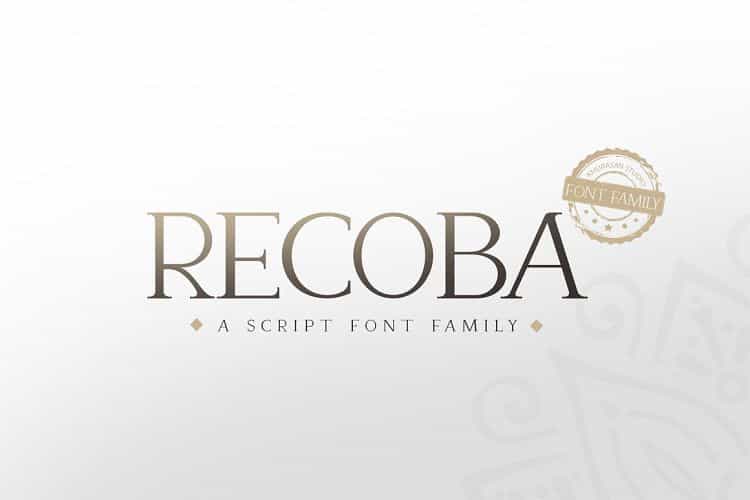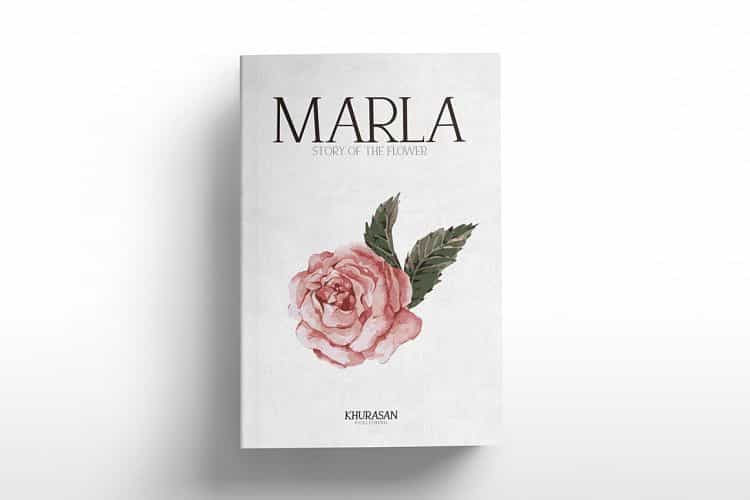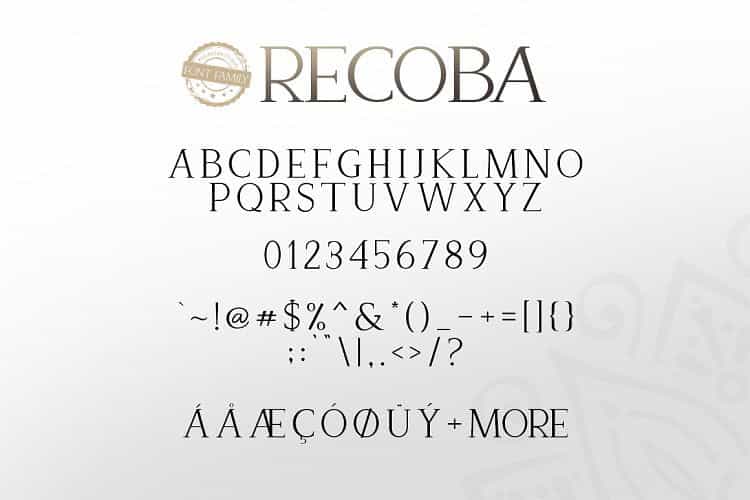
I am grateful for your attention to the Recoba Typeface project. The geometric original font is designed according to the current fashion trends and it fits well with the minimalistic modern designs. It is created and posted by khurasan.